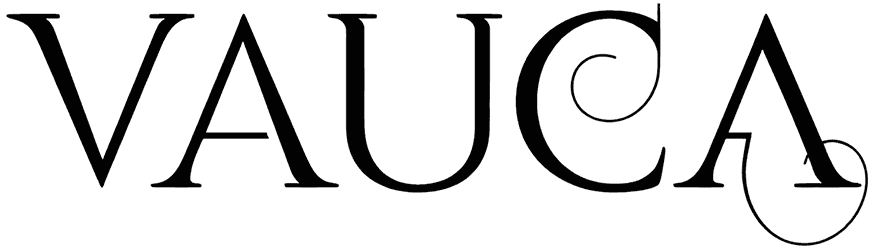
Vauca Font
Here we are again with Vauca, a marvelous luxury serif font that offers two distinctive versions of uppercase letters to graphic artists.
This font has the real potential to bring a sense of formality, validity, confidence, and dynamic to any kind of professional purposes, such as logos, branding projects, flyers, stationaries, and business cards. Considering its numerous benefits, the lack of lowercase letters is not a serious matter.